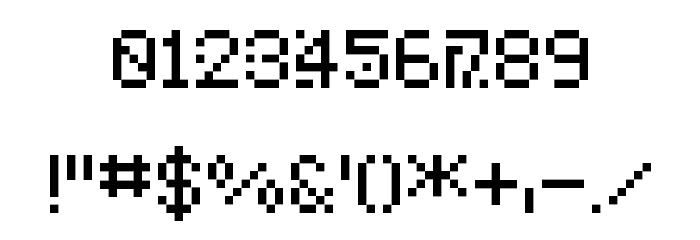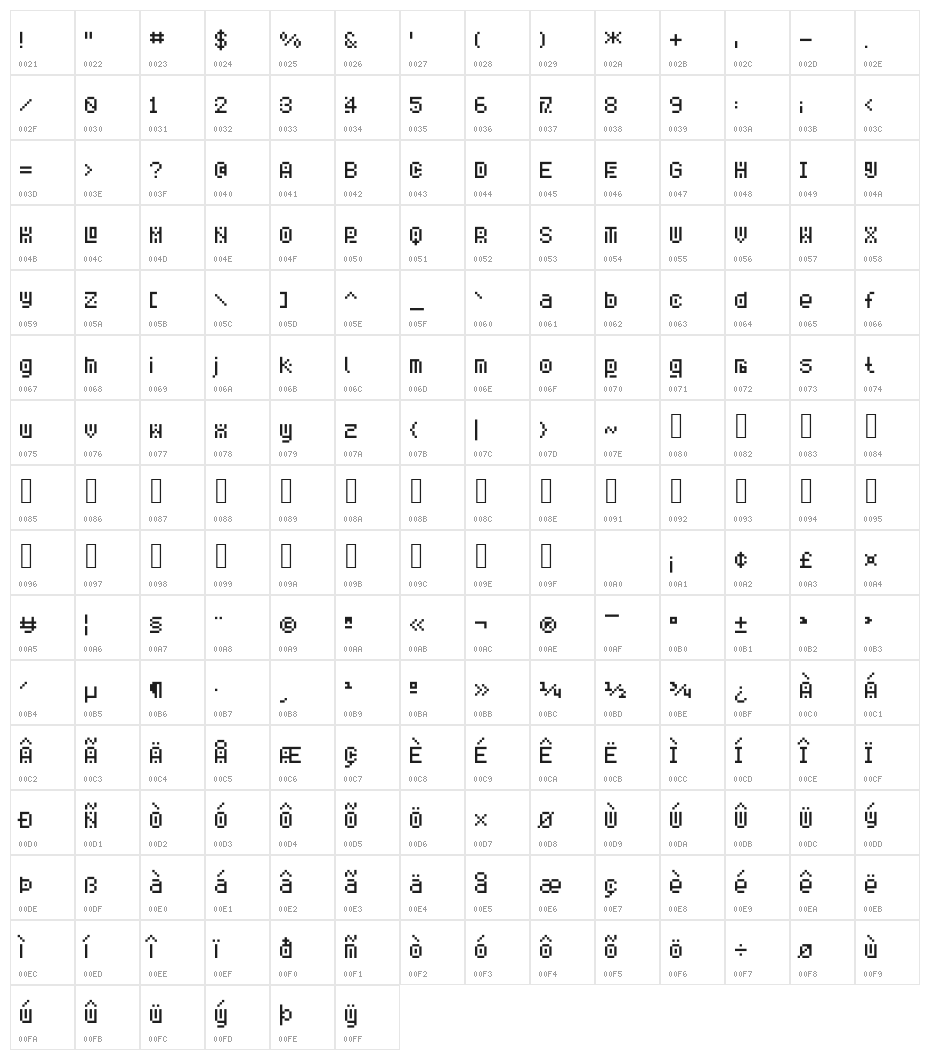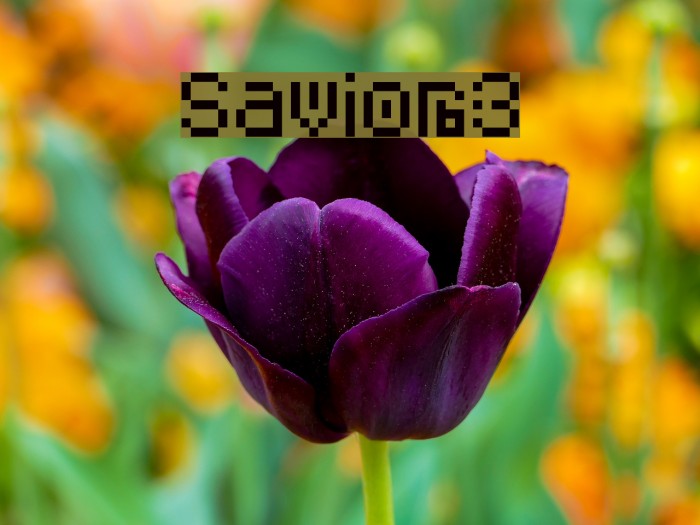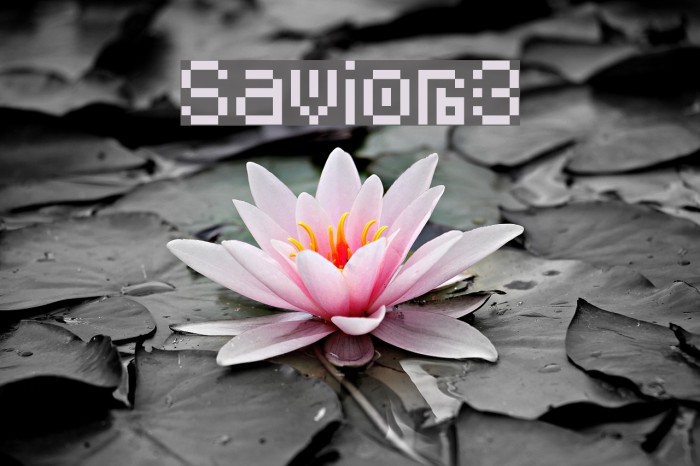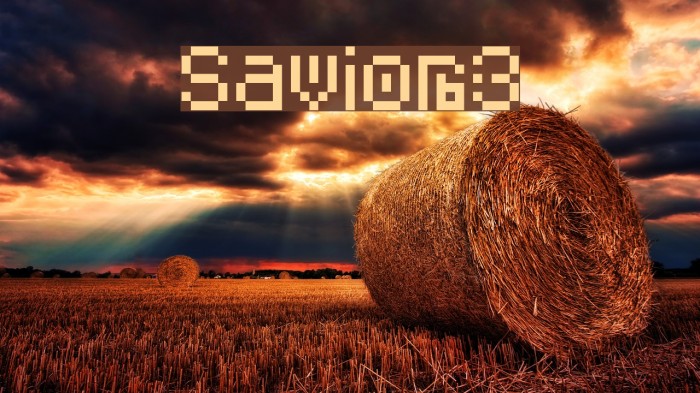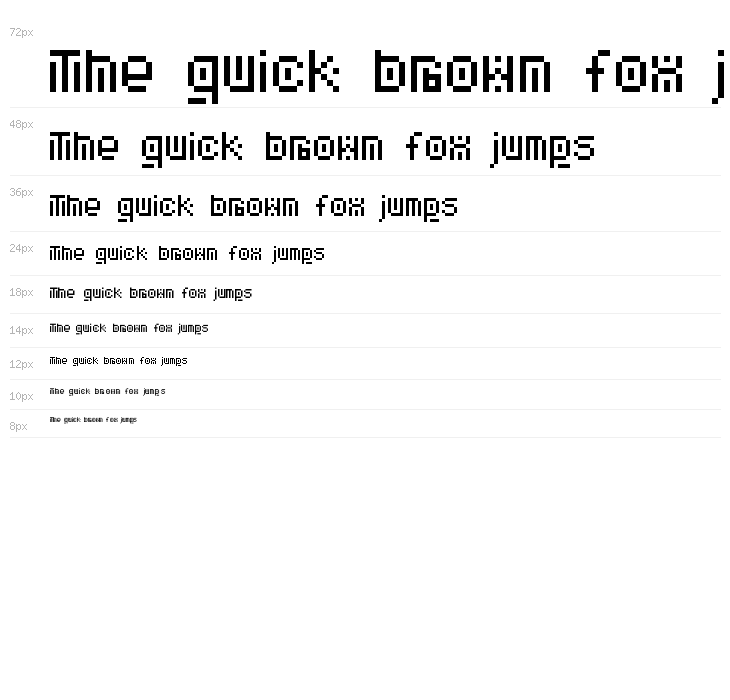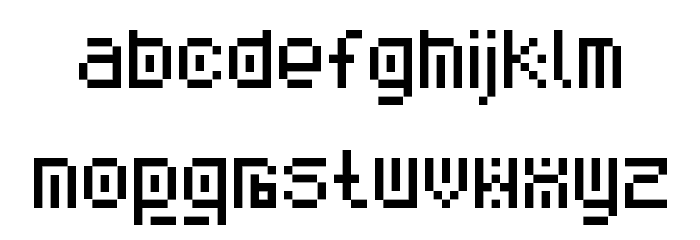
Savior3 Font
Savior3 Description
This font features a pixelated, blocky design reminiscent of early digital displays and retro video games. Each character is constructed with a grid-like precision, giving it a distinctly geometric and modular appearance. The uppercase and lowercase letters maintain a consistent height, contributing to a uniform look across the typeface. The numerals and special characters follow the same pixelated style, ensuring cohesion throughout. This font's nostalgic aesthetic makes it ideal for projects that aim to evoke a sense of vintage digital technology or retro gaming culture.
| Overall Style | Retro |
| Proposed Projects | Ideal for retro video game designs, digital art projects, tech-themed posters, and nostalgic branding. |